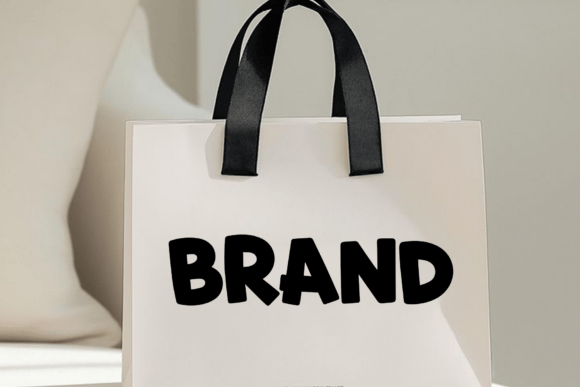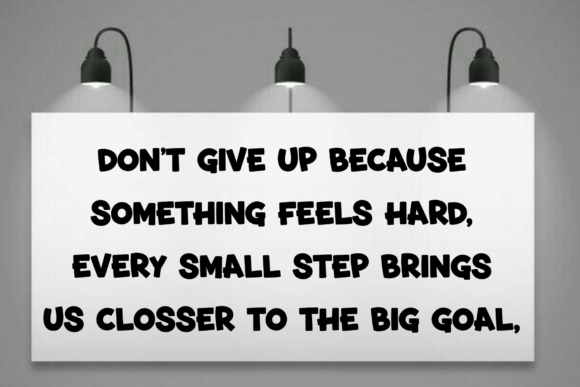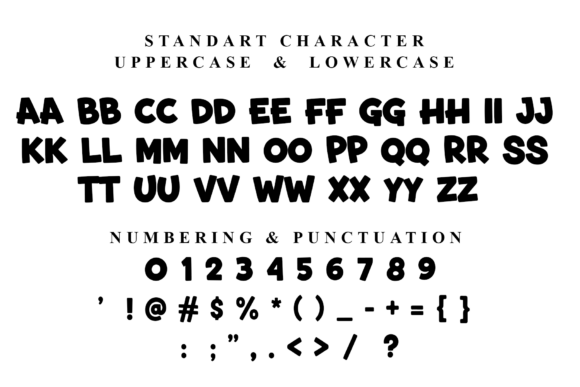
Introduction to Quick Hunter Font
Have you ever found yourself stuck in a creative rut, frantically searching for the perfect font to bring your design to life? You scroll through pages of generic sans-serifs, only to feel uninspired and unfulfilled. That’s where the Quick Hunter Font comes in – a game-changing design resource that will breathe new life into your creative projects.
This charming, hand-drawn font exudes warmth and friendliness, making it the perfect choice for personal projects, invitations, and social media graphics. With its round, playful strokes, the Quick Hunter Font creates a relaxed and approachable feel that’s sure to captivate your audience. Whether you’re working on a high-quality design or need a free download for a last-minute project, this font is equipped with standard PUA Encoded glyphs, making it compatible with a wide range of applications.
As a valuable resource for designers, the Quick Hunter Font offers a level of customization and creativity that’s hard to find in standard fonts. Plus, with its transparent background, you can easily integrate it into your design without any distractions. So why settle for an ordinary font when you can have a unique and engaging one? Download the Quick Hunter Font today and take your designs to the next level!
Key Features of Quick Hunter Font
- High quality design resource: This font is designed to provide a high-quality visual experience for any project, from graphic design to digital art.
- Transparent background: The Quick Hunter Font comes with a transparent background, allowing for easy customization and integration with other design elements.
- High resolution: The font is designed at 300 DPI, making it suitable for use in high-resolution projects and print materials.
- Unique character set: The Quick Hunter Font features a unique character set, including a range of symbols and glyphs that can add an extra layer of depth and creativity to your designs.
- Perfect for creative projects: With its bold and striking design, the Quick Hunter Font is ideal for use in creative projects, such as branding, advertising, and editorial design.
Honest Review: Quick Hunter Font
As a designer, I’m always on the lookout for high-quality fonts that can elevate my creative projects. The Quick Hunter Font has been a recent addition to my design resource library, and I’m excited to share my honest review.
- ✨ Unique and bold design that’s perfect for action-packed or adventurous projects
- ⚠️ Limited font weight options, which may not be suitable for projects requiring a range of font styles
- ⚠️ No transparent background option, which can be a challenge for designers working with complex backgrounds
Overall, the Quick Hunter Font is a solid addition to any design library. While it may have some limitations, its unique design and free download option make it a great choice for creative projects that require a bold and adventurous look.
Use the font in combination with other design elements to create a cohesive look. Experiment with different font sizes, colors, and styles to achieve the desired effect. The font’s versatility makes it suitable for various creative projects.
The Quick Hunter Font is perfect for modern designs, creative projects, and design resources. It can be used for logos, social media graphics, presentations, documents, and more. Its transparent background feature makes it ideal for designs with complex backgrounds.